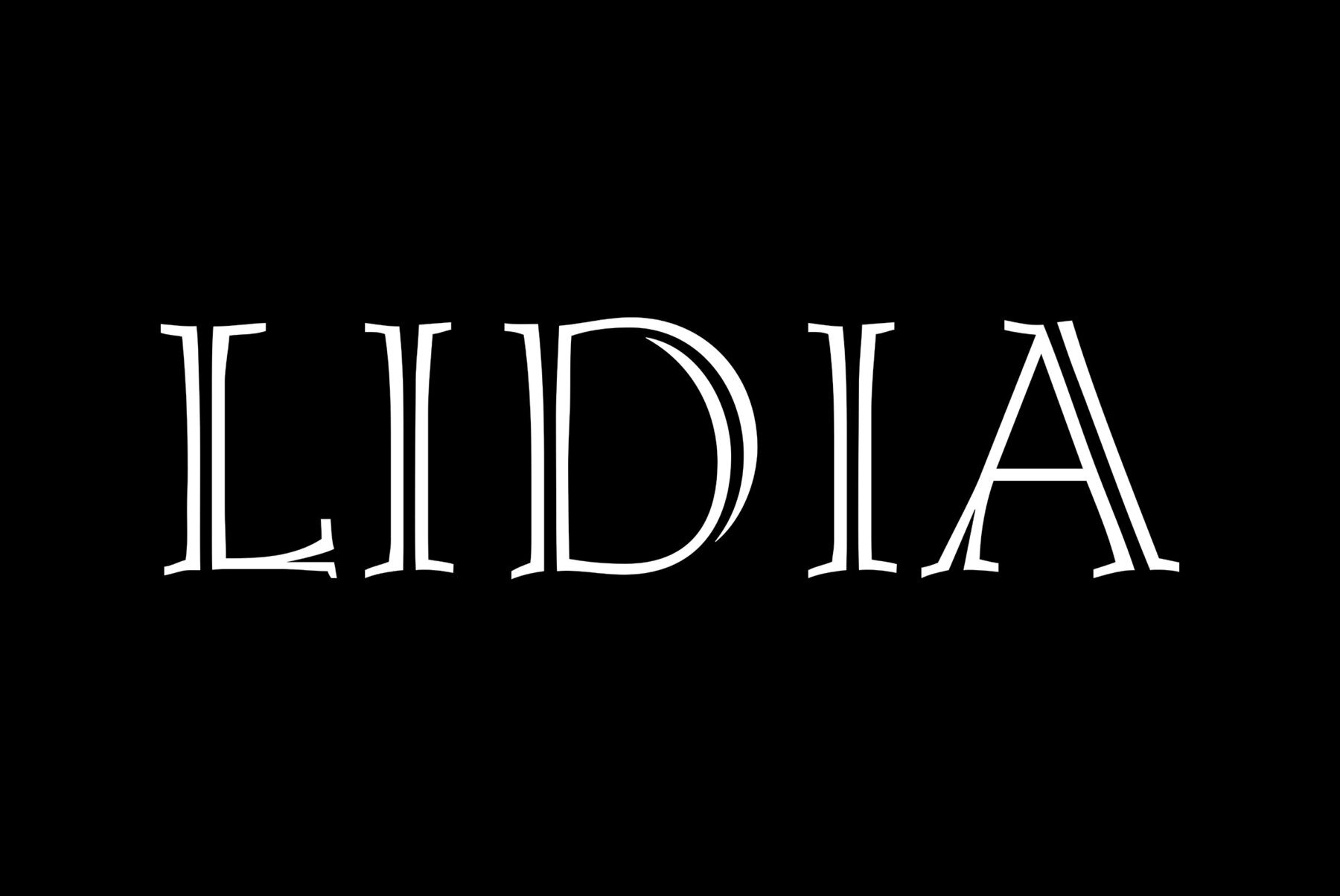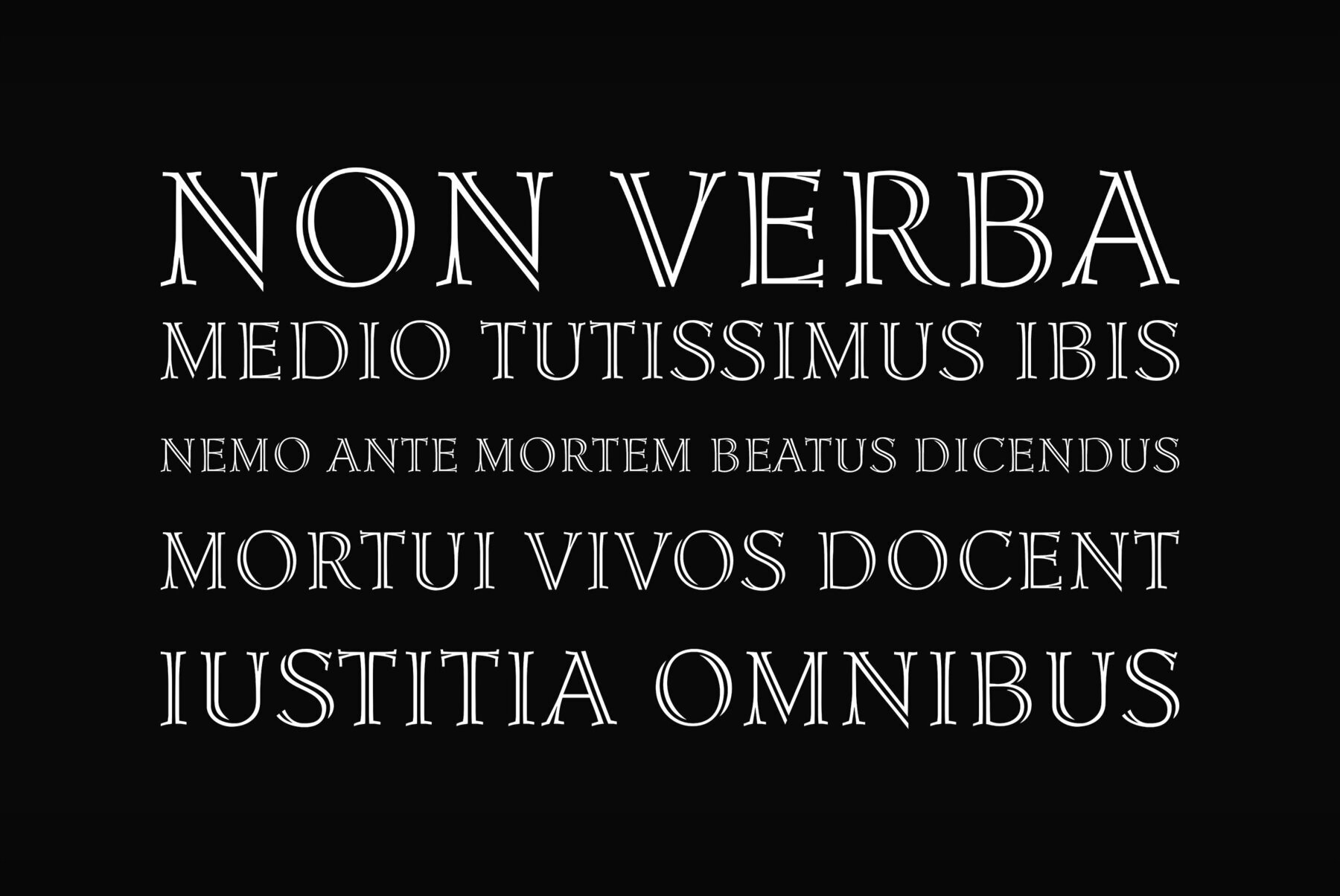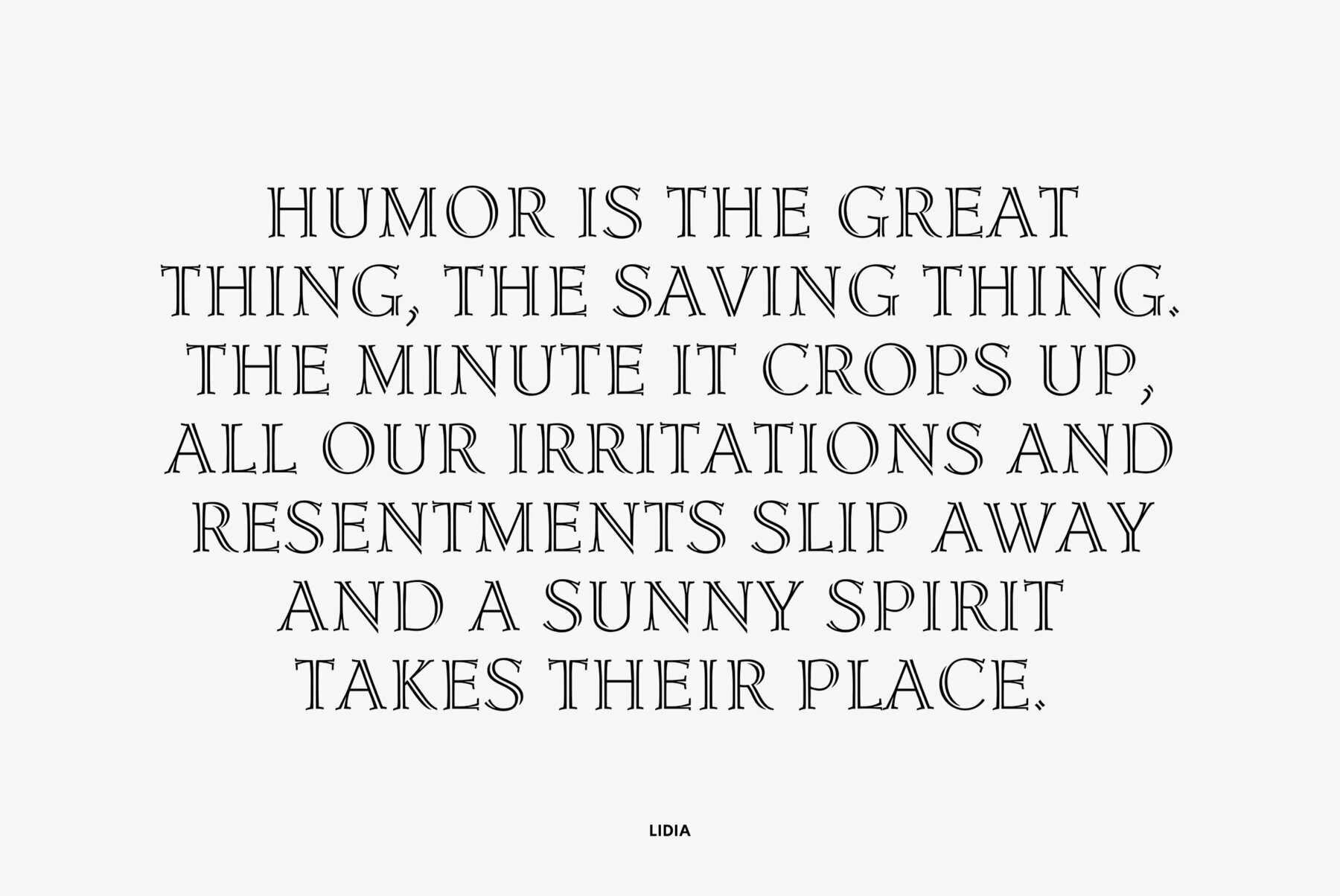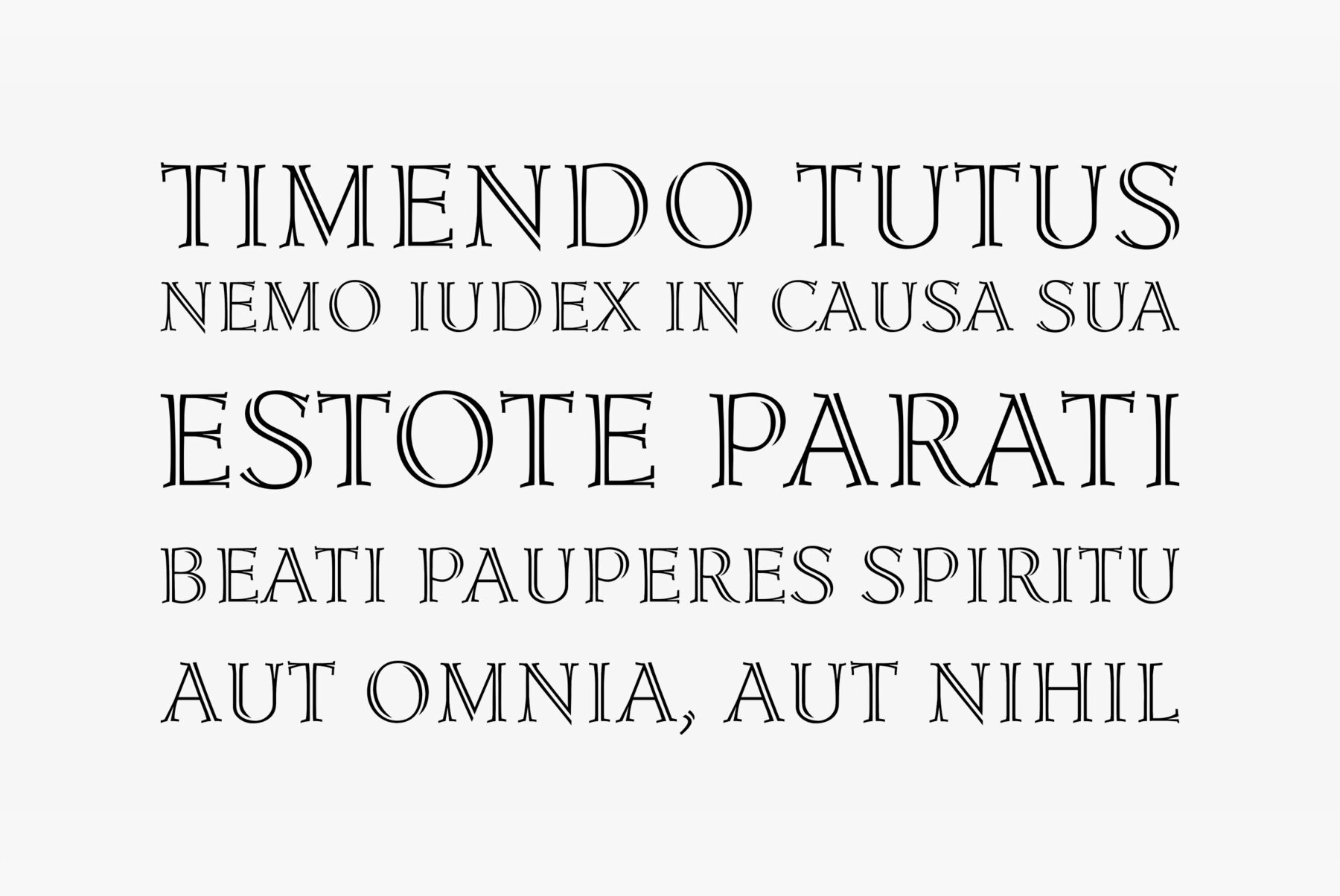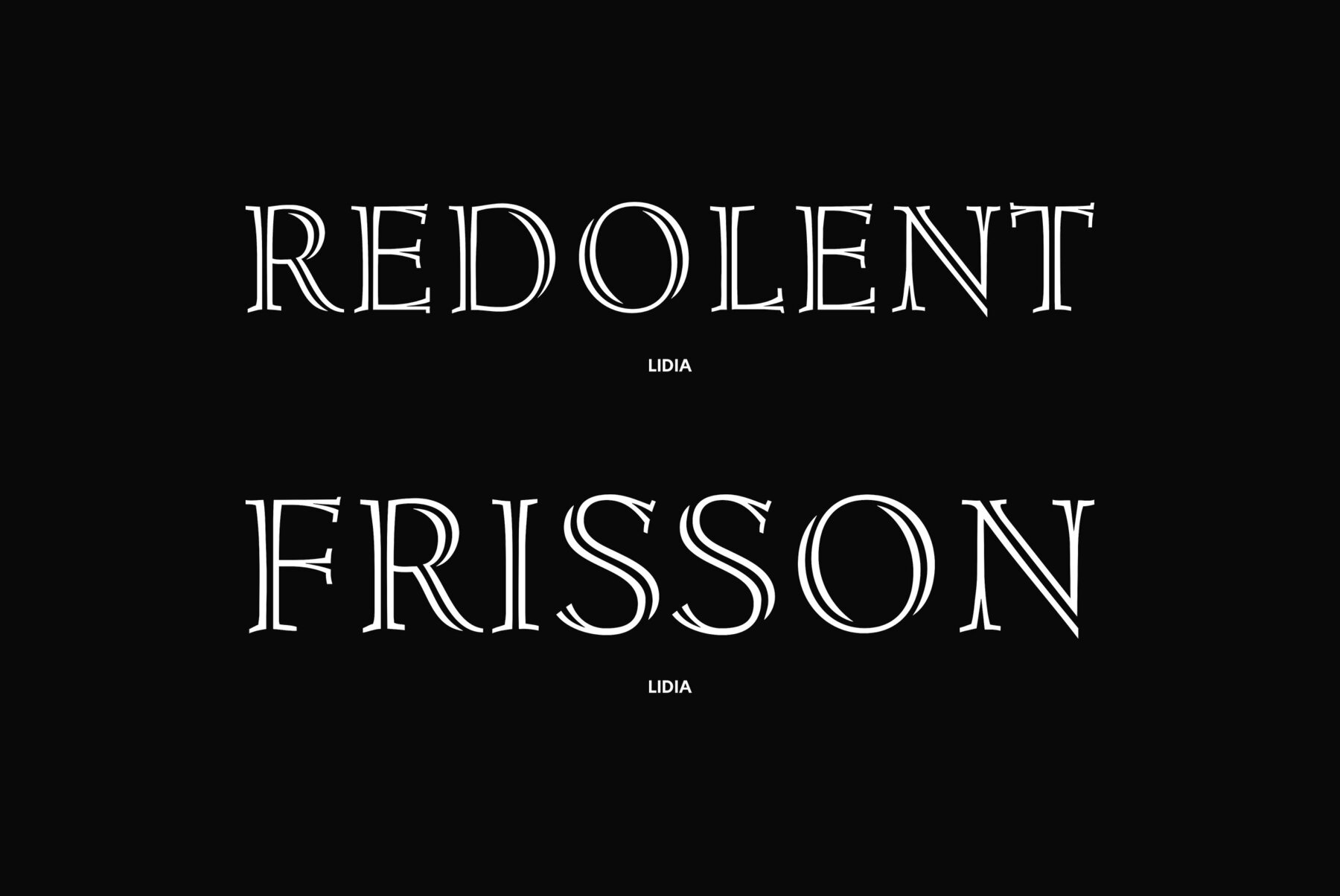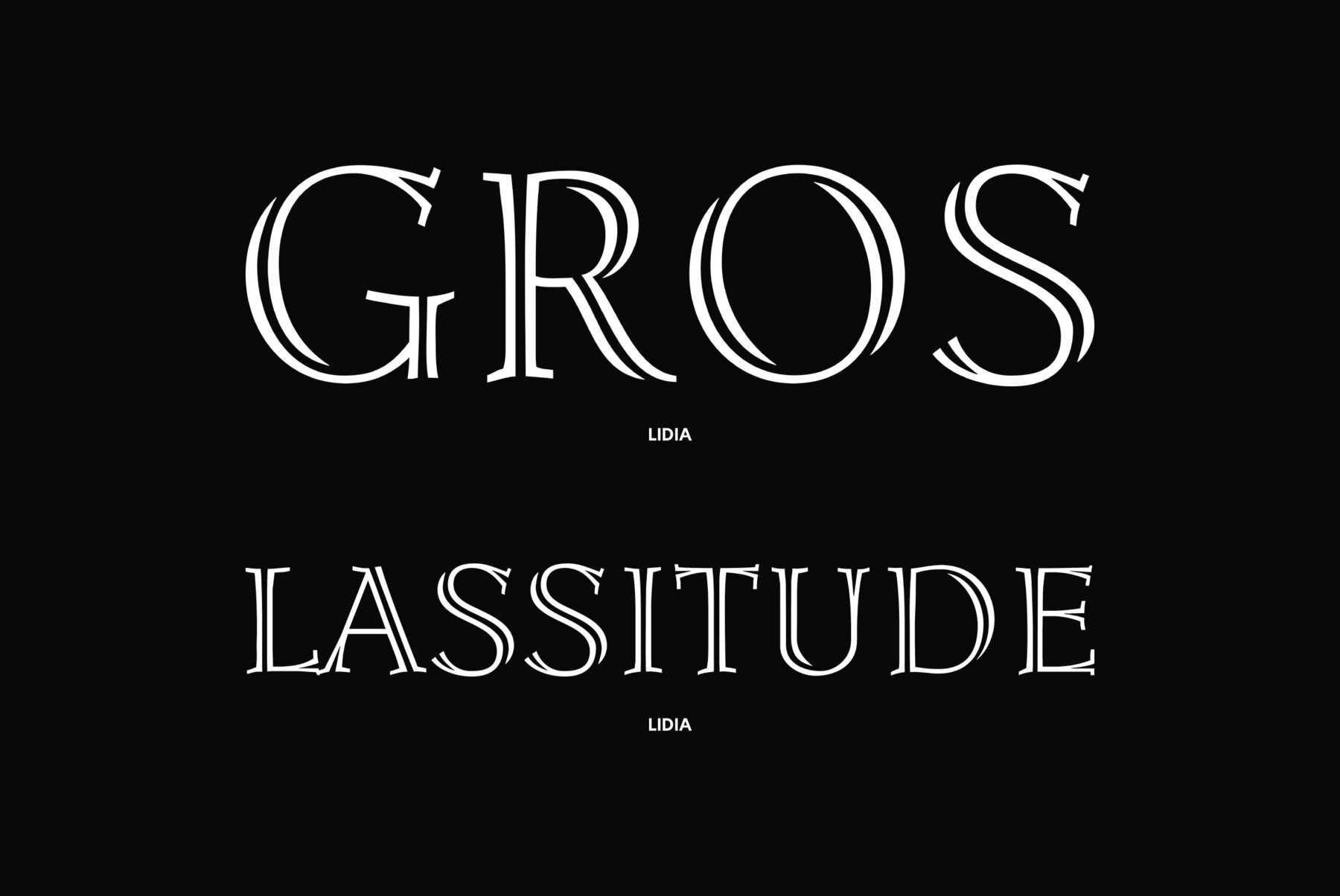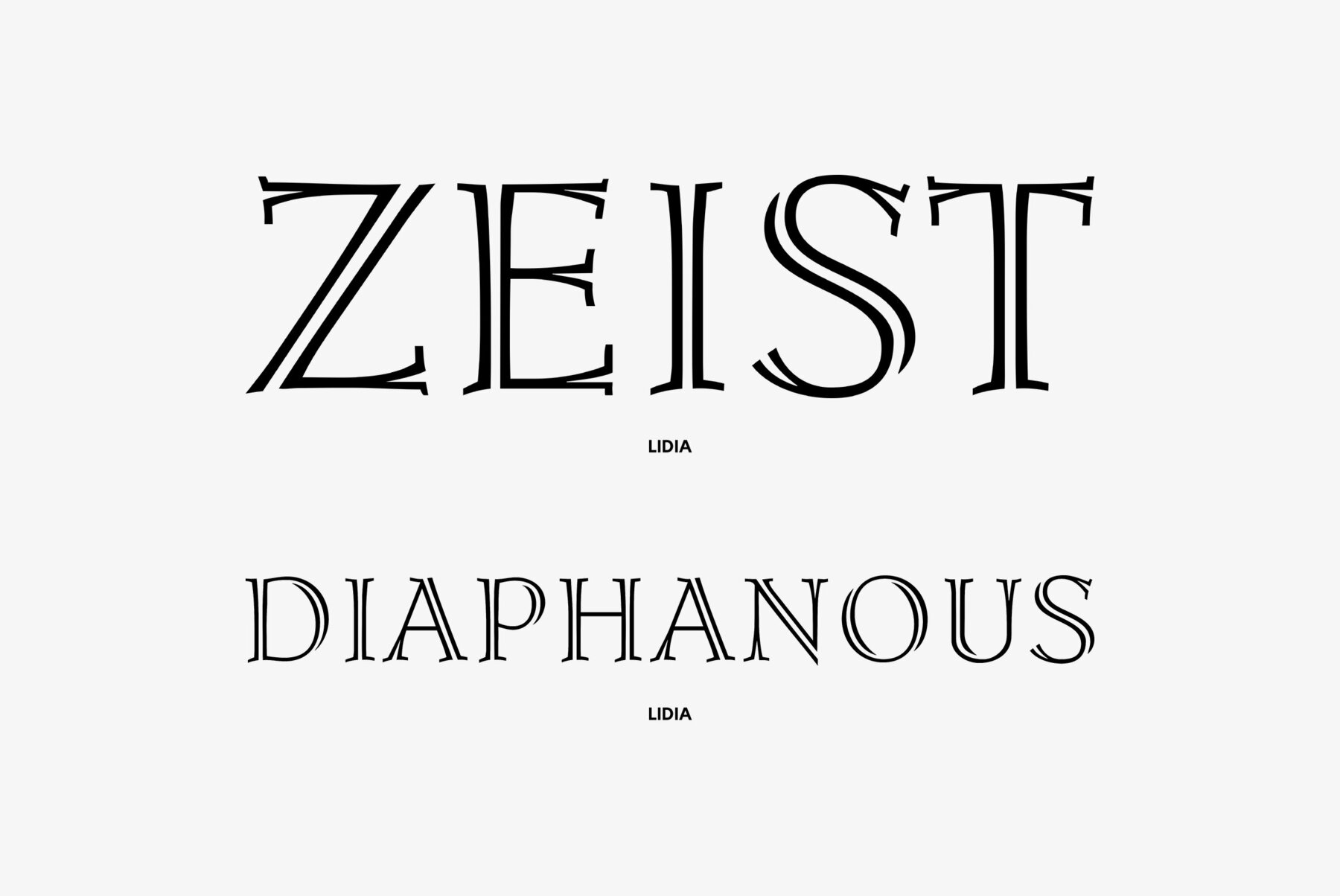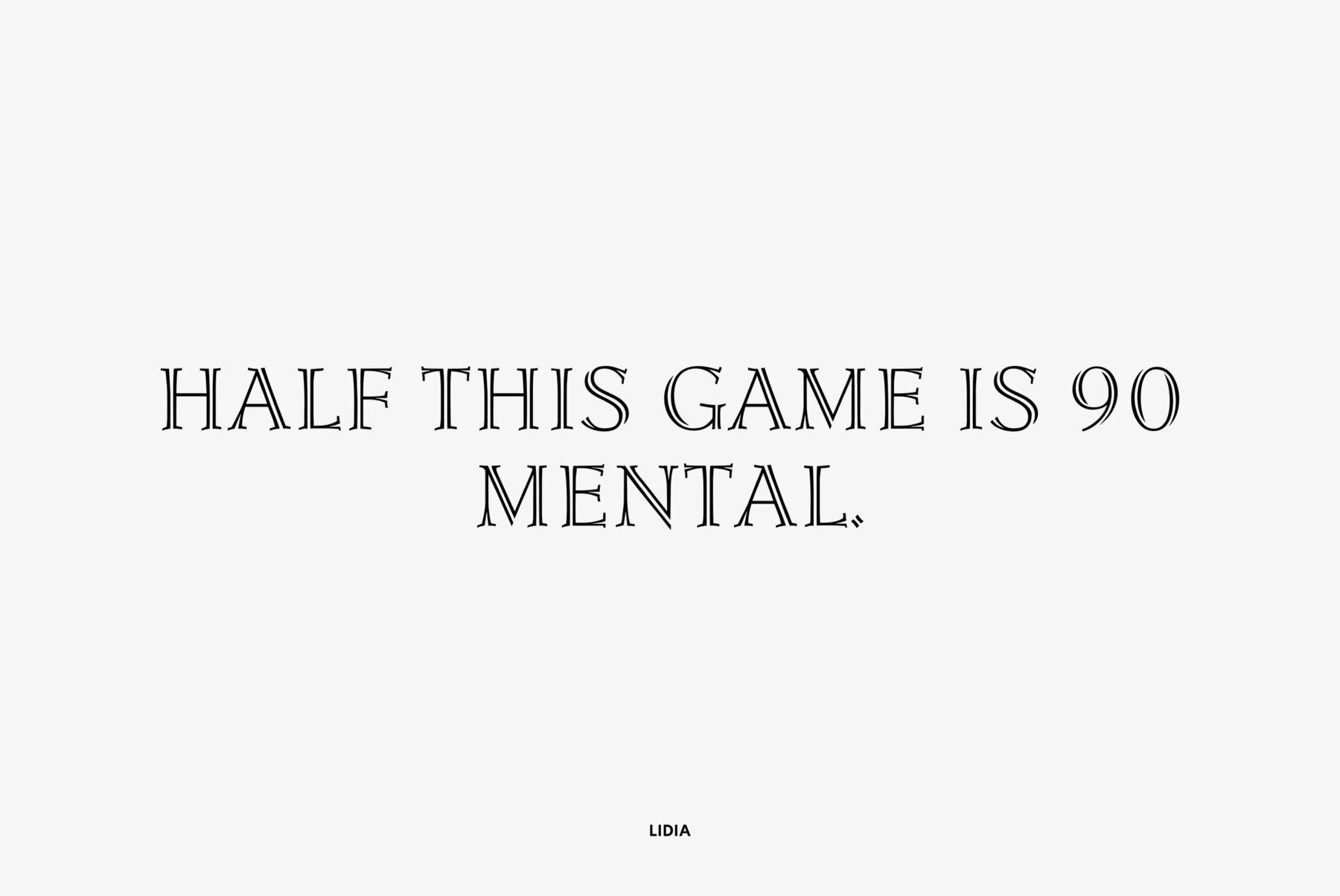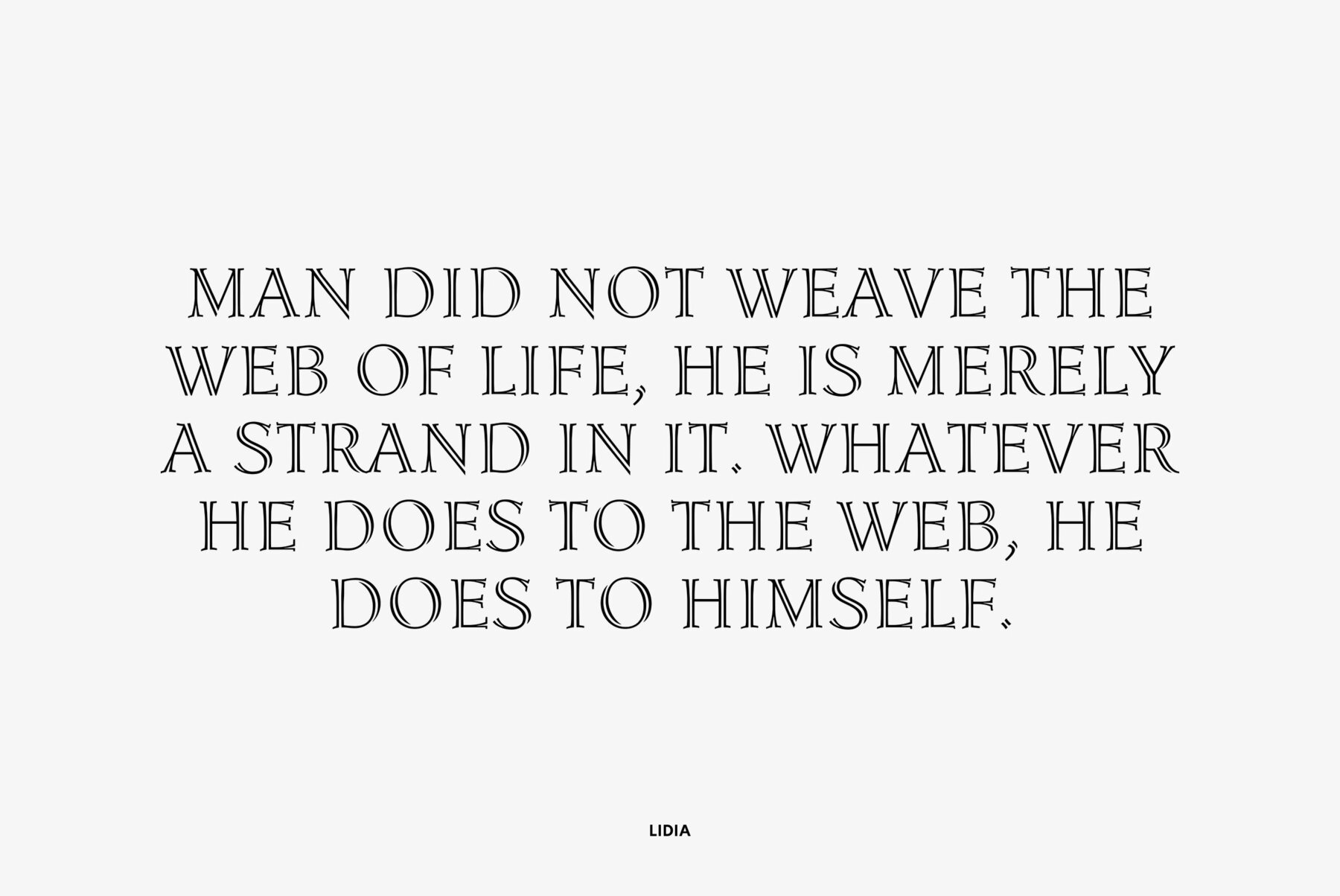
The decorative title typeface was designed at Polygraphmash type design bureau in 1967 by Iraida Chepil'. It is a decorative variant ('open', or 'engraved') of classical serif typefaces. For use in magazine headlines, title and display typography. The revised and completed digital version was designed for ParaType in 2005 by Victor Kharyk.